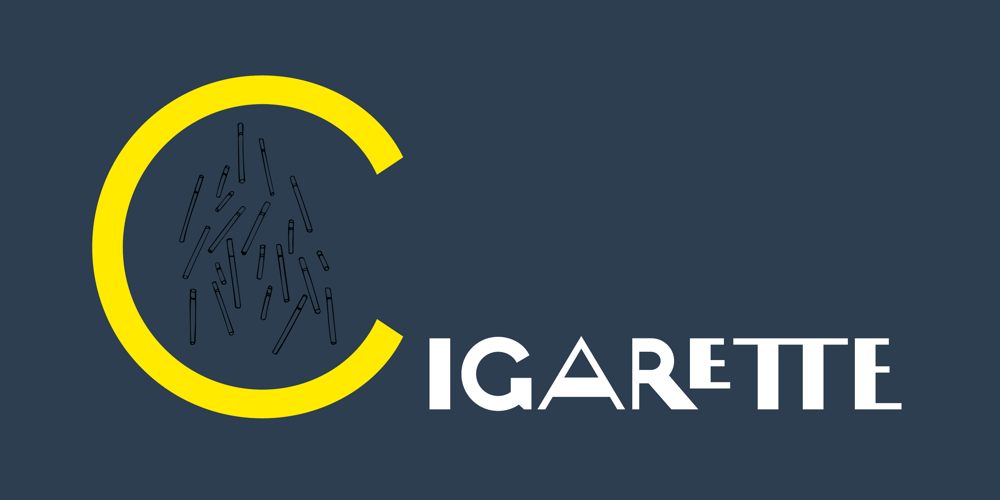
Cigarette Font Family was designed by Ryoichi Tsunekawa and published by Dharma Type. Cigarette contains 1 styles and family package options. Experimental typography meets Art deco retro style. Odd contrast gives your work a curious impression.By using ‘liga’ and ‘dlig’ feature of OpenType format, you can access advanced typography.